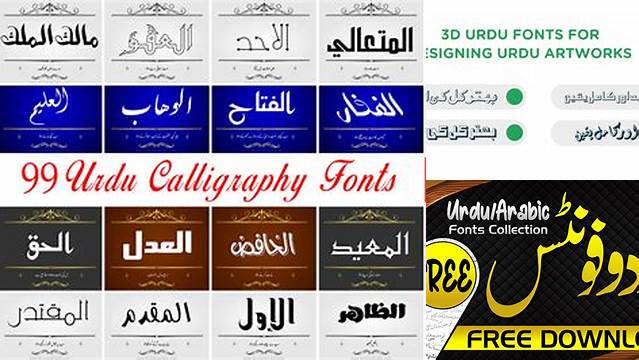
3D Urdu Fonts: Free Download Guide
Hey guys! Ready to add some serious flair to your Urdu designs? Let's dive into the awesome world of 3D Urdu fonts! I'm talking about those cool, eye-catching fonts that pop off the screen or page, giving your projects a unique and professional edge. In this guide, we'll explore where you can find these amazing fonts for free download, how to use them, and even some tips and tricks to make your designs stand out. So, buckle up, and let's get started on this font-tastic journey!
Why 3D Urdu Fonts Are a Game Changer
So, why bother with 3D Urdu fonts in the first place, right? Well, imagine your Urdu text, not just flat and plain, but with depth, dimension, and serious visual appeal. That's the magic of 3D fonts! They're perfect for all sorts of projects, from posters and logos to website headers and social media graphics. These fonts bring a whole new level of creativity to the table. Think about it: you're not just conveying a message; you're making a statement! With the right 3D Urdu fonts, you can capture attention, evoke emotions, and leave a lasting impression on your audience. They're particularly effective in a world that's becoming increasingly visual. Furthermore, they offer a unique way to celebrate and showcase the beauty of the Urdu script. These fonts are not just tools; they're design elements that can transform your work from ordinary to extraordinary. Whether you're a seasoned designer or just starting, mastering 3D Urdu fonts can significantly elevate your skill set and open up exciting creative possibilities. You'll have the power to create designs that are not only visually stunning but also highly engaging and memorable. Trust me, incorporating these fonts into your projects can be a real game-changer. Plus, using them for free means you get all the benefits without breaking the bank! They're perfect for digital art, graphic design, and even print media. Don’t underestimate the impact of a well-chosen font on the overall feel of your design; it can communicate much more than just words. Consider using them for everything from your personal blog to professional presentations. Remember, the right font can elevate your designs, creating a lasting impression on your audience.
The Benefits of Using 3D Fonts
- Enhanced Visual Appeal: 3D Urdu fonts immediately grab attention with their depth and dimension, making your text more engaging.
- Increased Creativity: They open up a world of creative possibilities, allowing you to experiment with different styles and effects.
- Professional Look: Using these fonts can give your designs a polished and professional appearance.
- Versatility: They can be used in a variety of projects, from logos to social media graphics.
- Cultural Representation: They celebrate and highlight the beauty of the Urdu script.